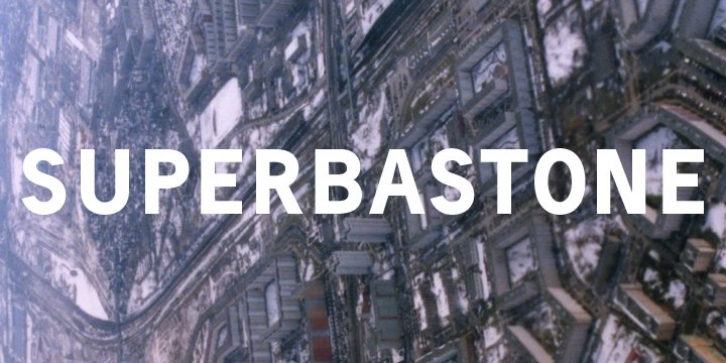
Superbastone
is a linear font in the style of the classic gothics with a more geometrical design (i.e. in the same way of DIN);
This family also includes small caps styles.